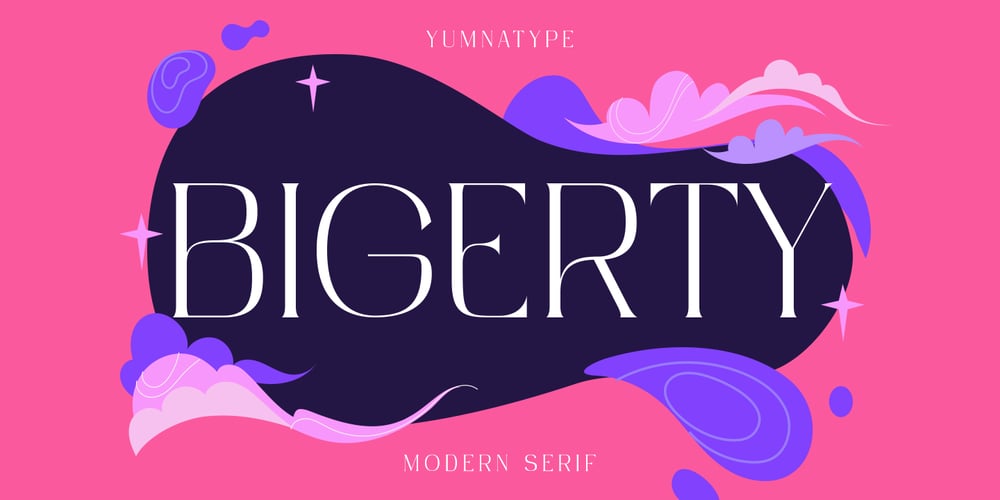
Bigerty Font Family was designed by Donis Miftahudin and published by Yumna Type. Bigerty contains 1 styles and family package options. Bigerty is a refined serif font that brings a light, airy touch to modern typography. Designed in a modern style, Bigerty sleek, clean lines and subtle serifs enhance its readability and visual appeal. The light weight of the font adds a delicate touch. This makes it ideal for projects that require a sophisticated yet understated look.The proportions of Bigerty are meticulously balanced. The font’s moderate contrast between the thin and slightly thicker strokes adds depth and interest without overwhelming the reader. The gentle curves and precise detailing in the characters lend a touch of elegance, making it suitable for upscale and professional designs. In addition, enjoy the features here.Features: Ligatures Multilingual Supports PUA Encoded Numerals and Punctuations Bigerty fits in headlines, logos, posters, flyers, branding materials, print media, editorial layouts, and many more designs. Find out more ways to use this font by taking a look at the font preview.Thanks for purchasing our fonts. Hopefully, you have a great time using our font. Feel free to contact us anytime for further information or when you have trouble with the font. Thanks a lot and happy designing.